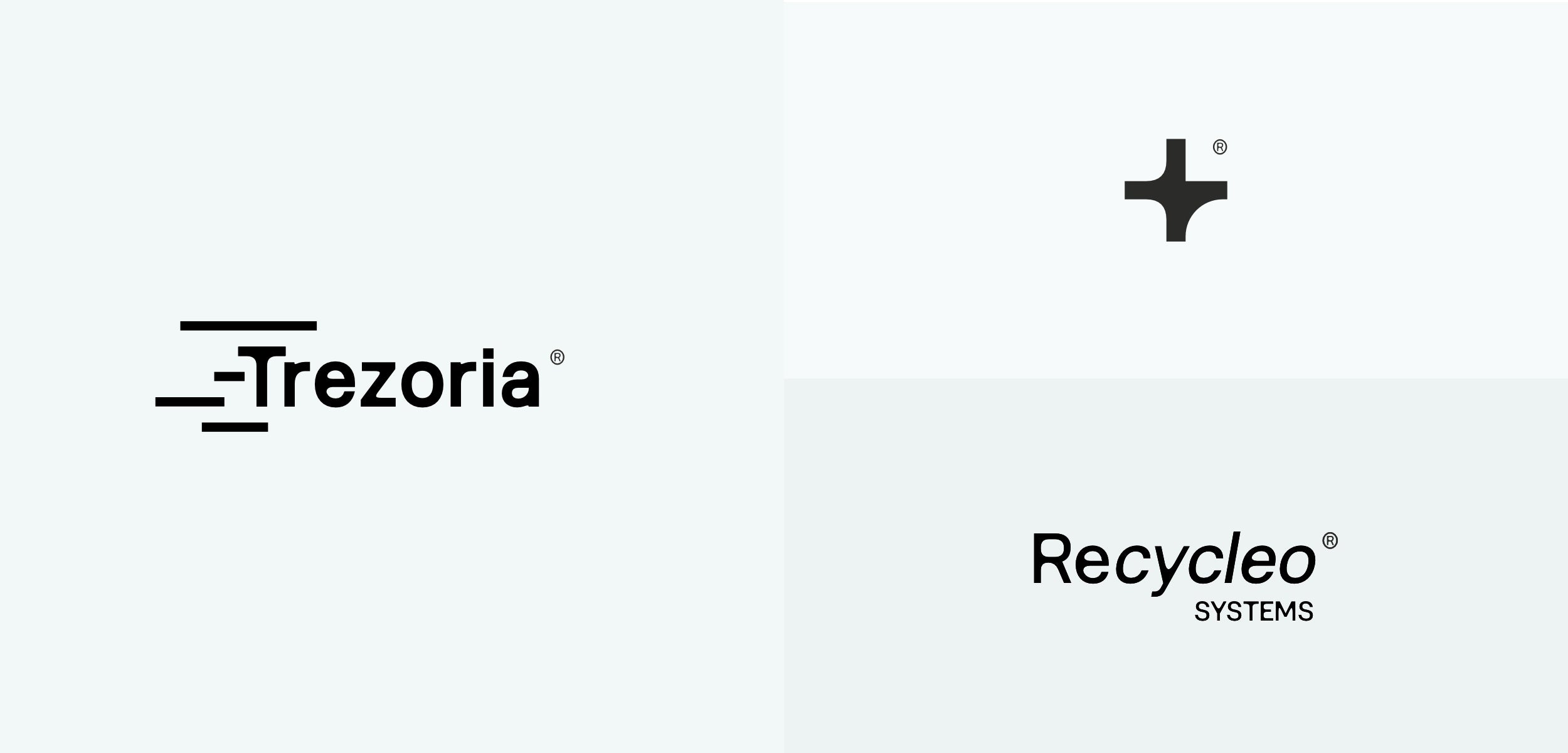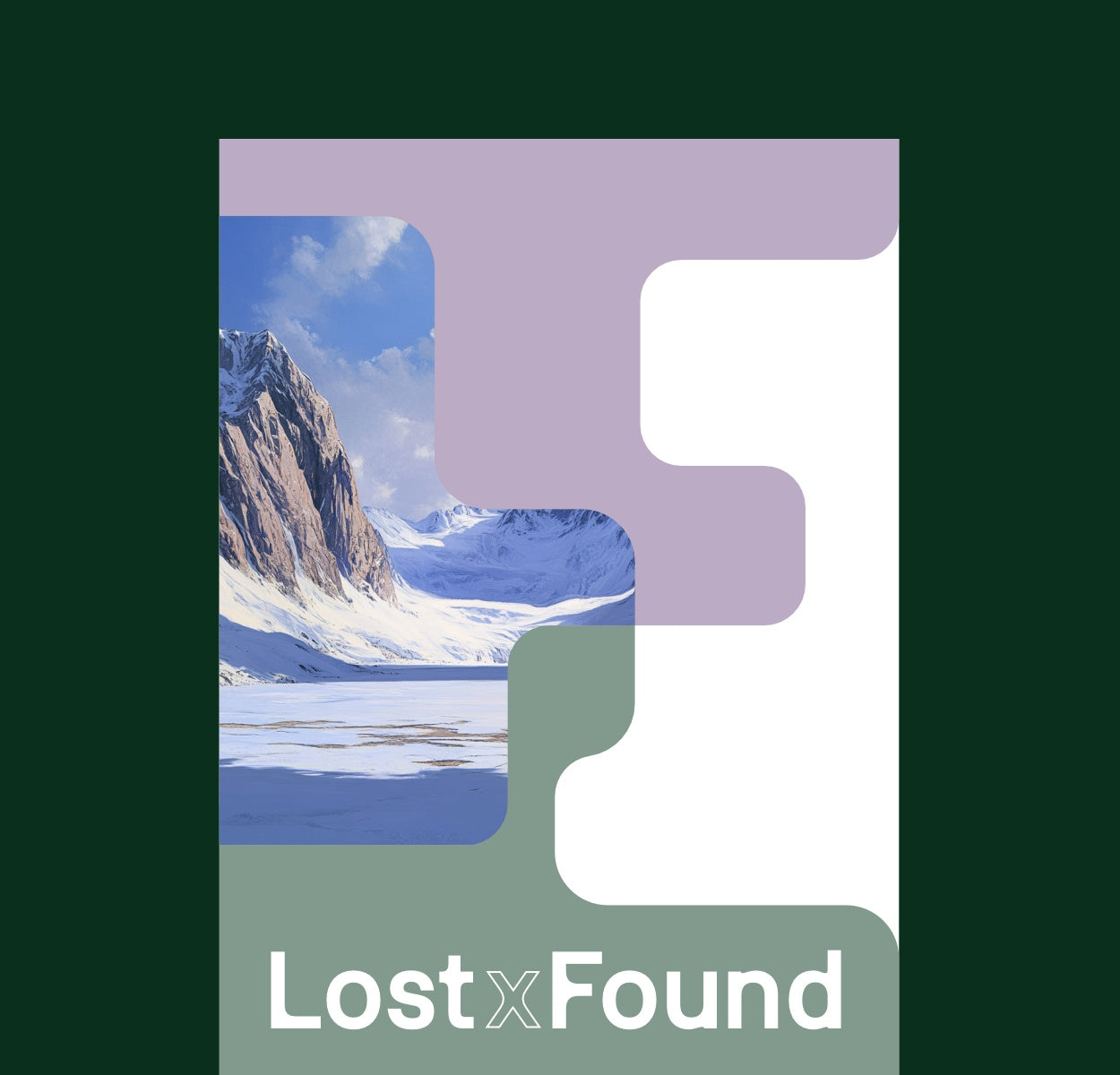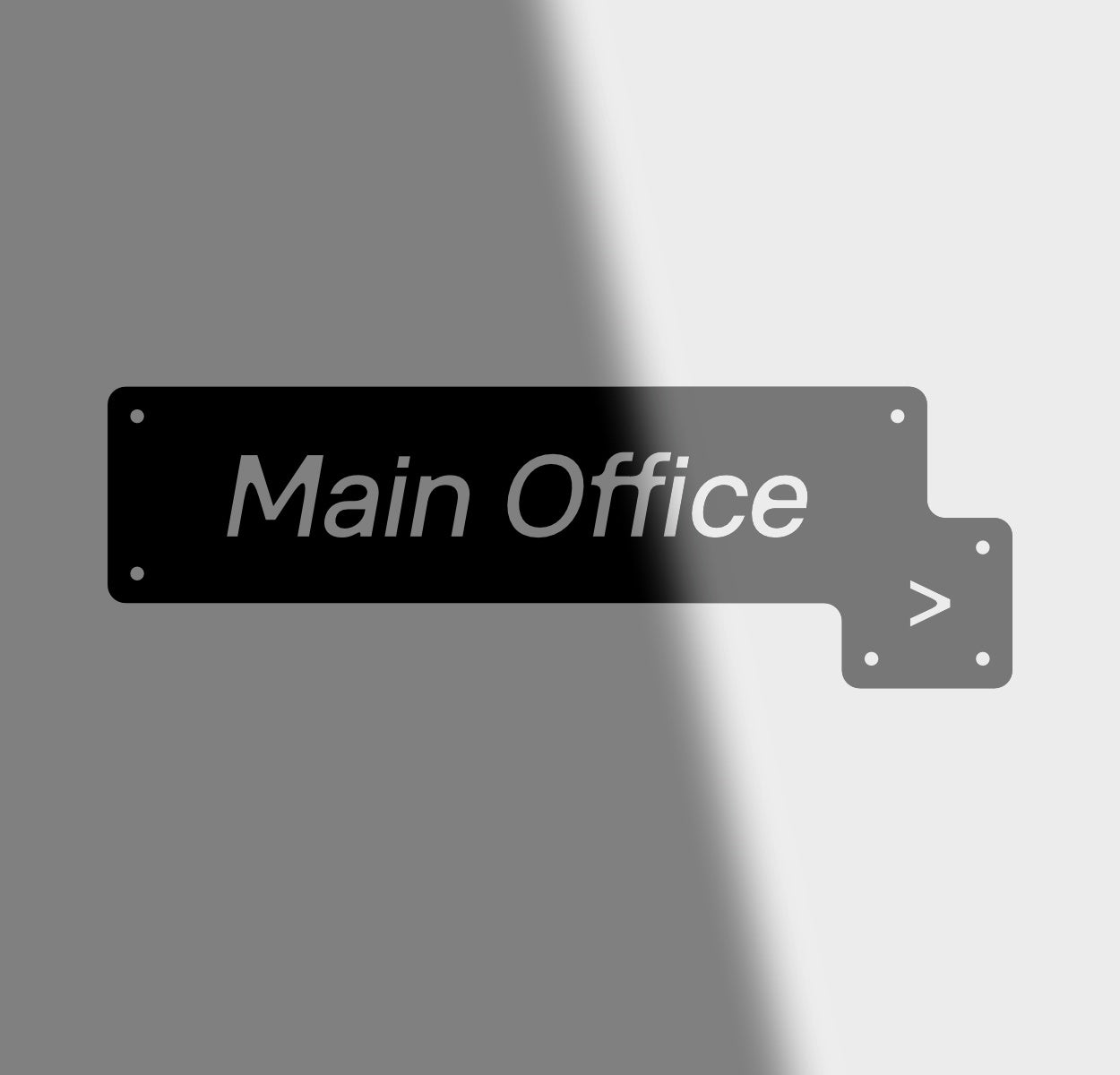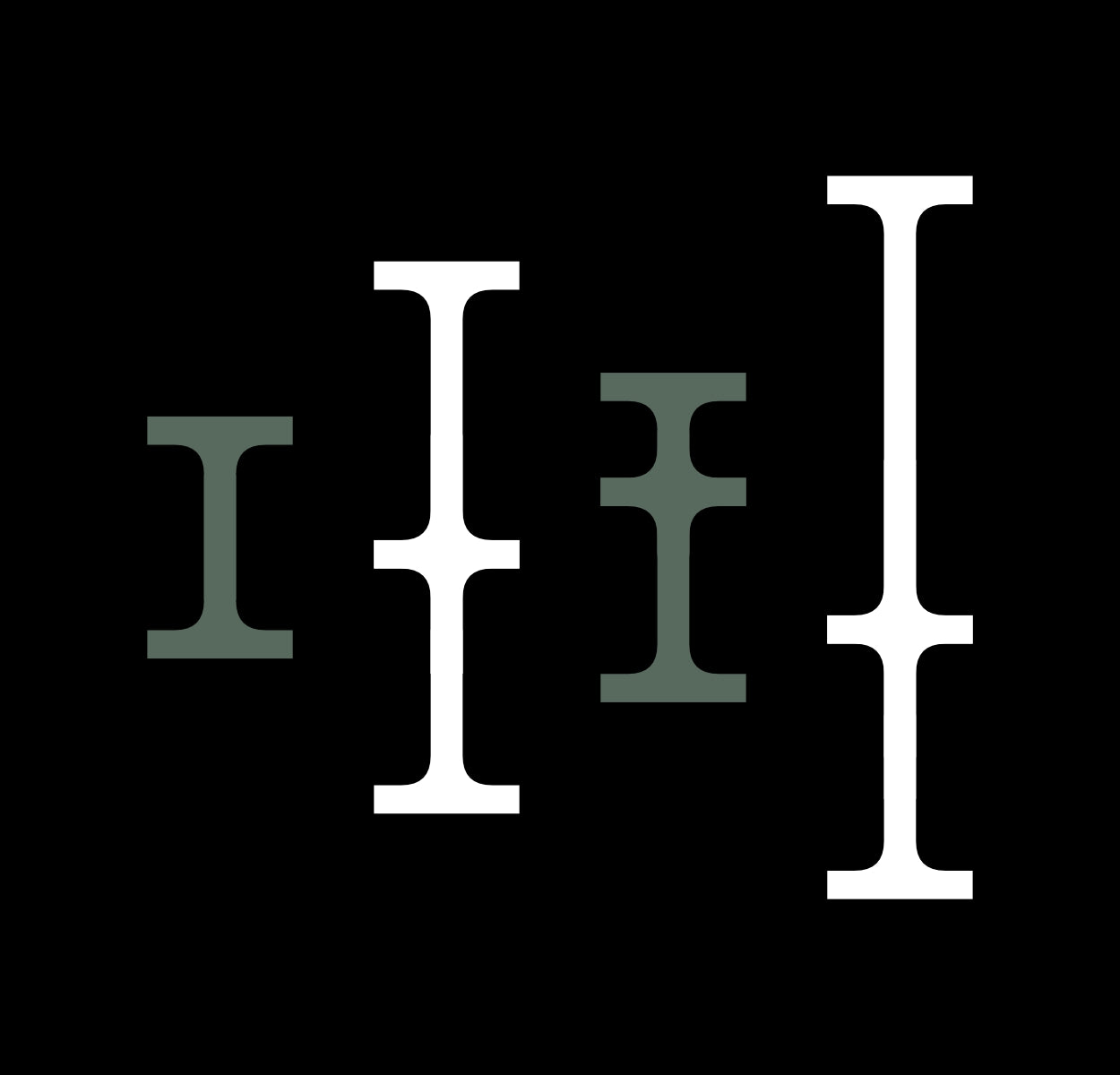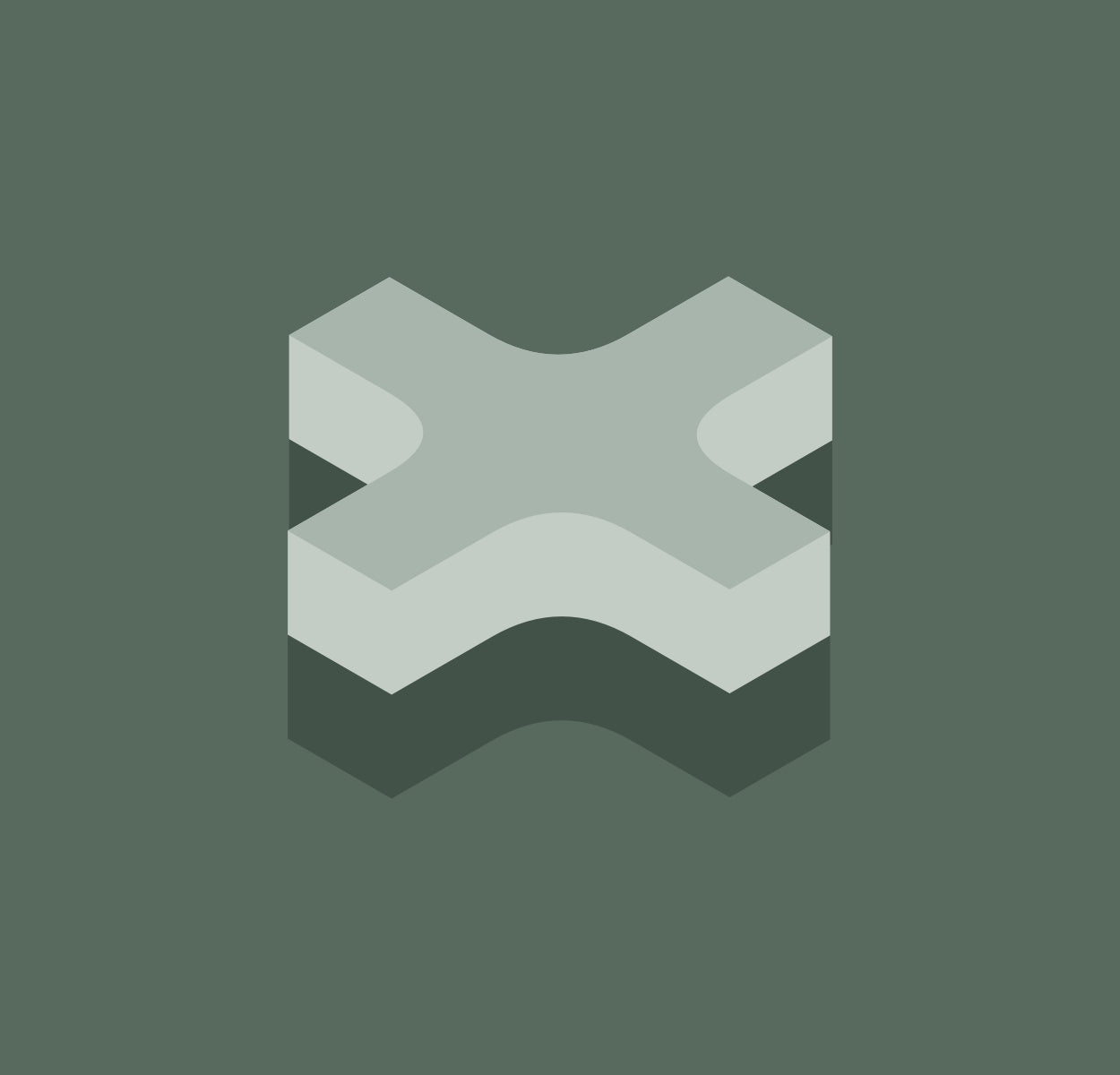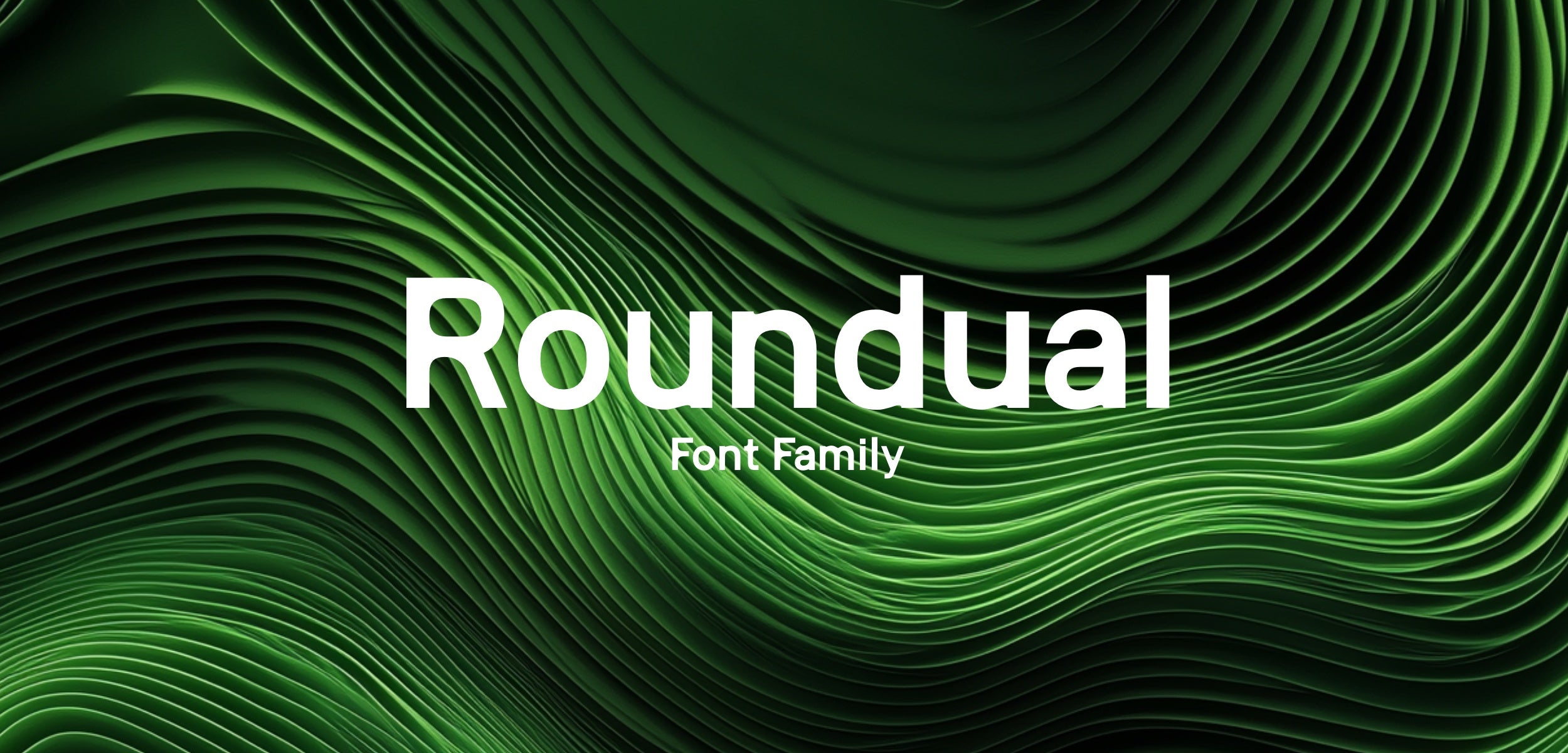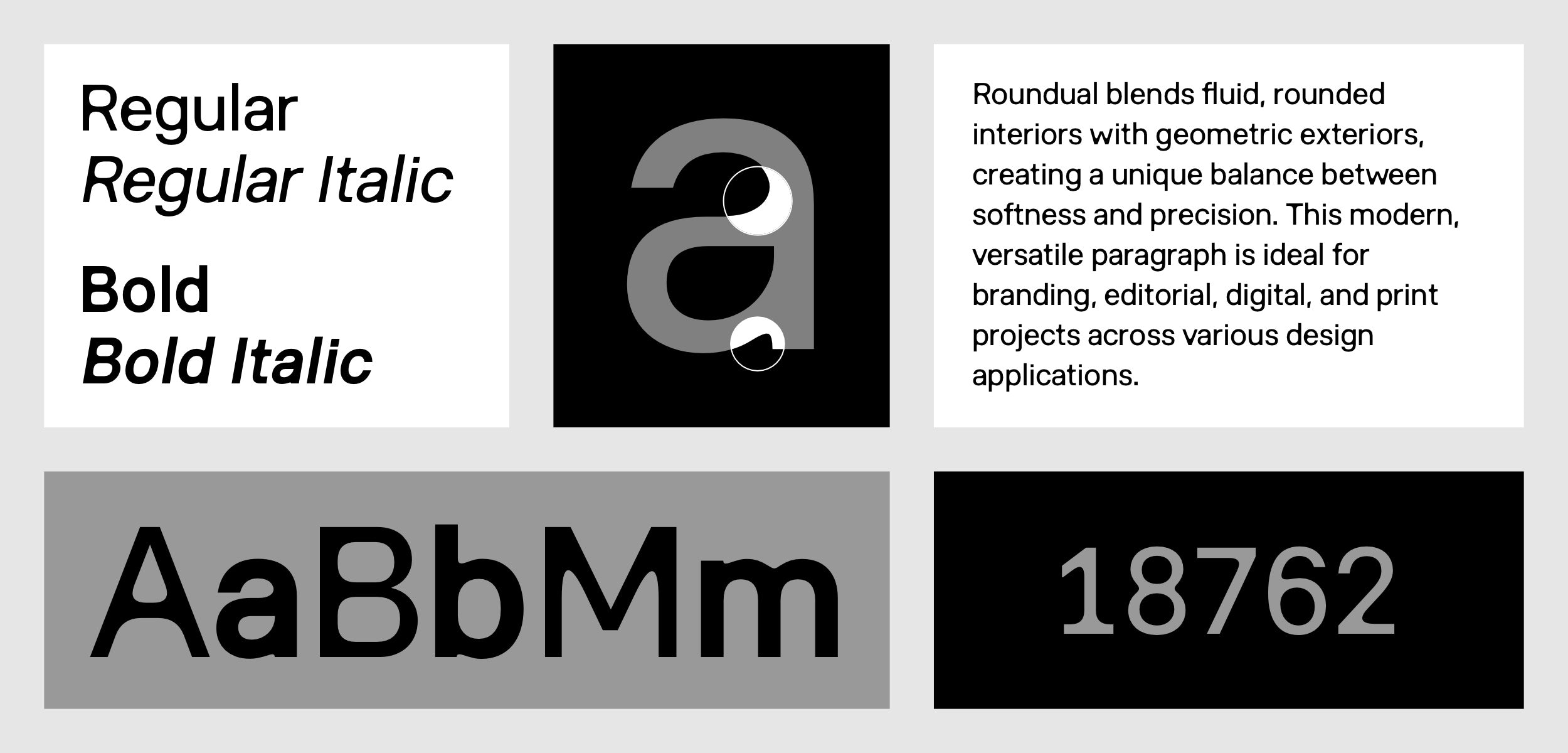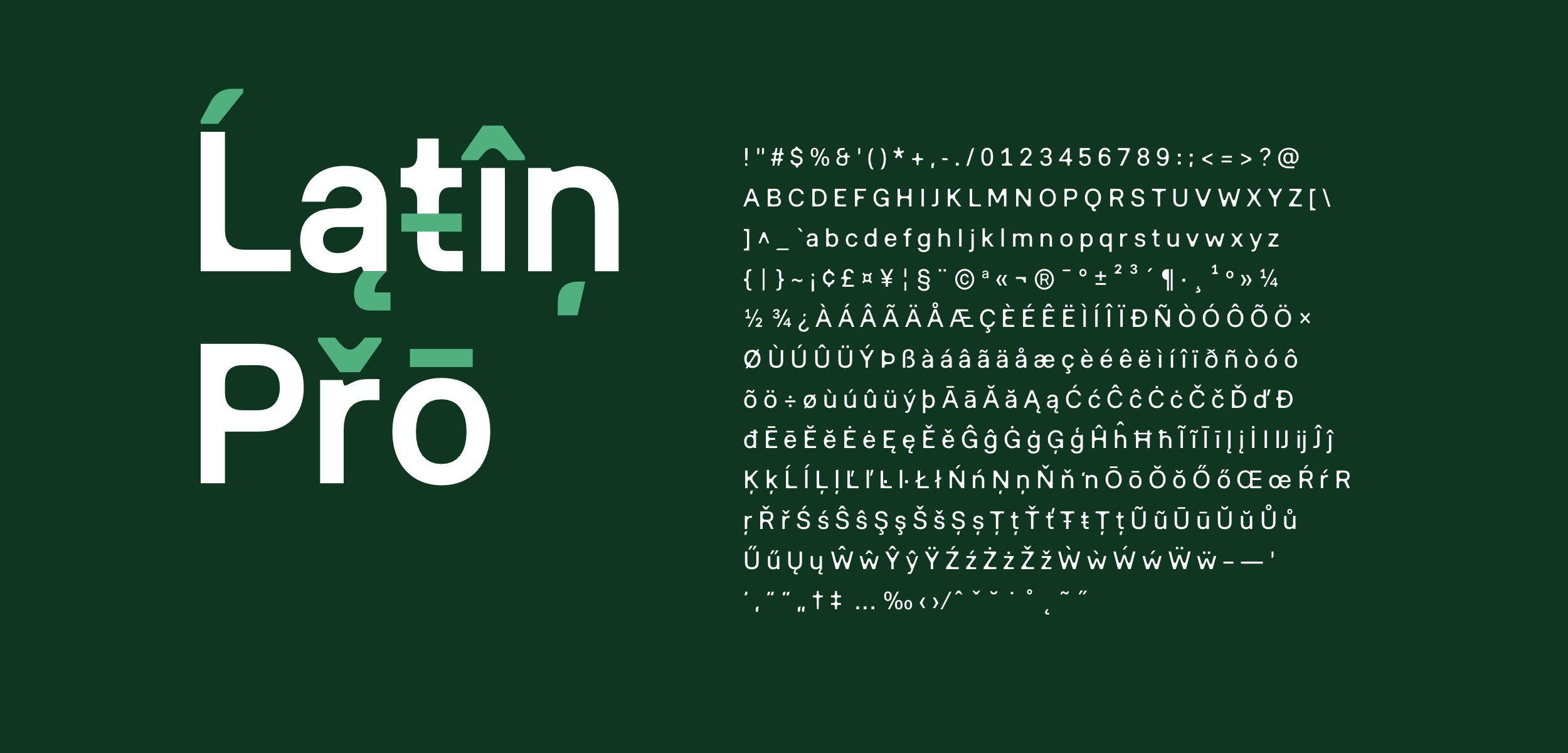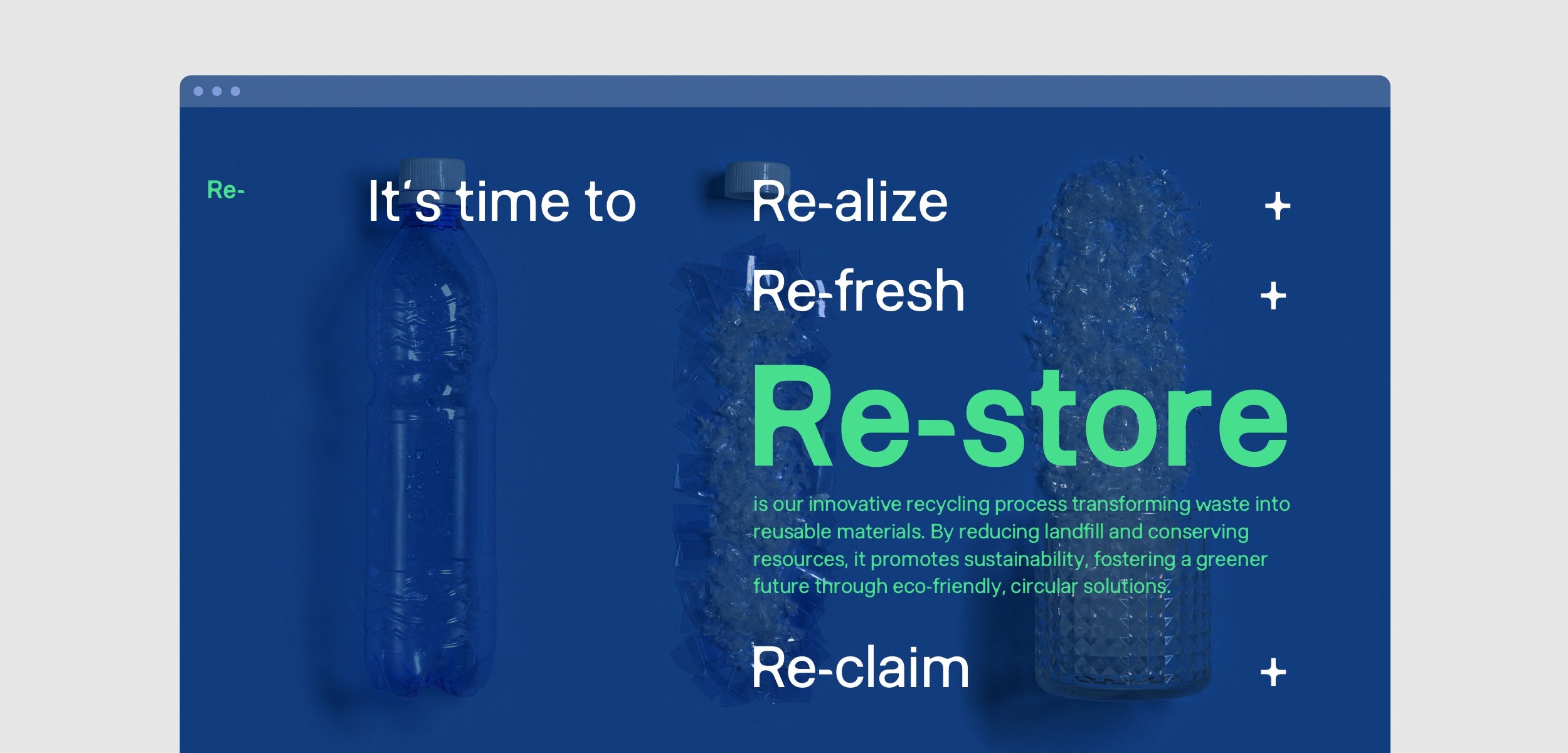
Use the elements of the font to create symbol plus wordmark structures for your brand identity projects.
Create bold wordmark logos using only the font characters.
Create symbols and logomarks using only font elements.
Roundual’s fluid yet geometric forms enhance editorial layouts, branding, and packaging. Its balanced structure ensures readability while adding a modern, distinctive aesthetic to magazines, posters, brochures, and corporate materials.
Roundual’s mix of soft curves and structured edges makes it ideal for signage, wayfinding, and spatial graphics. It integrates seamlessly into modern architecture, adding clarity and visual harmony to interiors.
Roundual’s unique character shapes allow for creative patterns, grids, and modular layouts. Its fluid-meets-geometric aesthetic provides endless possibilities for branding, experimental typography, and abstract compositions.
Roundual’s dynamic letterforms translate beautifully into 3D typography, engraved text, and digital modeling. Its blend of fluidity and structure enhances UI, motion graphics, and immersive design applications.
Roundual’s fluid yet geometric forms enhance editorial layouts, branding, and packaging. Its balanced structure ensures readability while adding a modern, distinctive aesthetic to magazines, posters, brochures, and corporate materials.
Roundual’s mix of soft curves and structured edges makes it ideal for signage, wayfinding, and spatial graphics. It integrates seamlessly into modern architecture, adding clarity and visual harmony to interiors.
Roundual’s unique character shapes allow for creative patterns, grids, and modular layouts. Its fluid-meets-geometric aesthetic provides endless possibilities for branding, experimental typography, and abstract compositions.
Roundual’s dynamic letterforms translate beautifully into 3D typography, engraved text, and digital modeling. Its blend of fluidity and structure enhances UI, motion graphics, and immersive design applications.